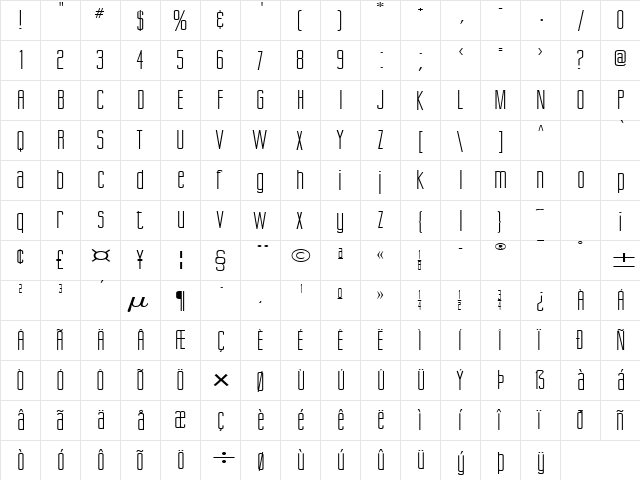
Gorgio Extended Normal
Design Context for Gorgio Extended Typeface
Gorgio Extended is a composed and adaptable typeface that performs quietly and consistently across a wide range of design contexts.